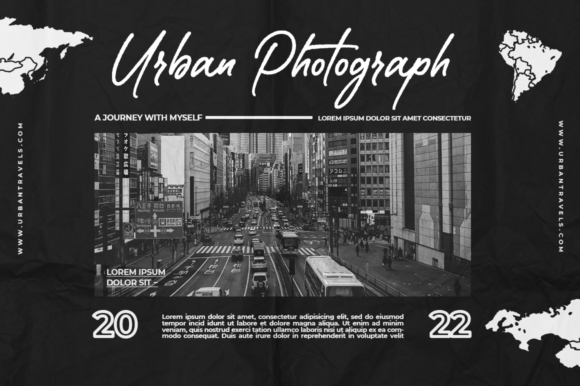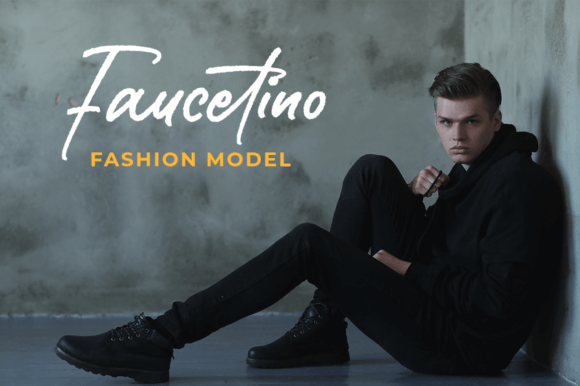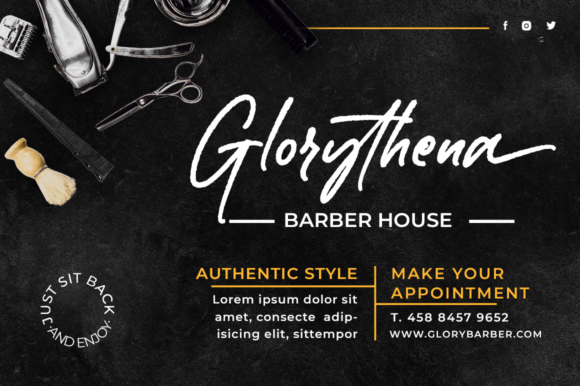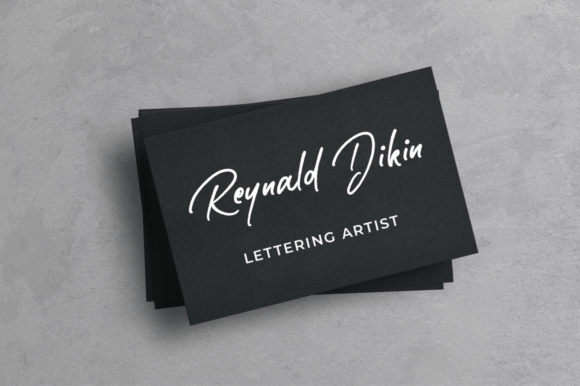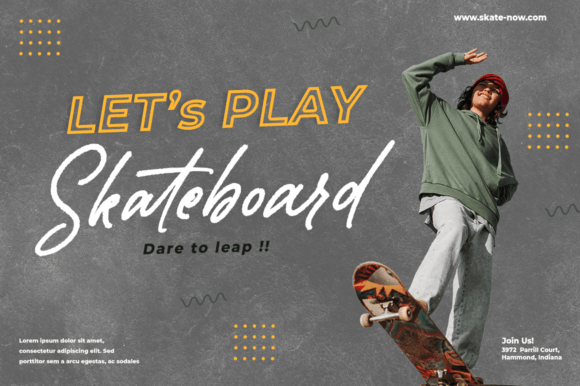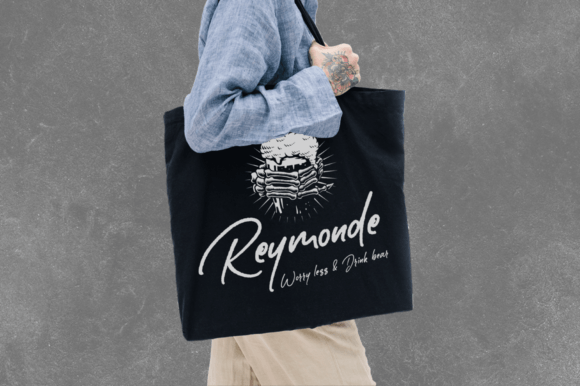
Bareytones Font: Elevate Your Designs with Elegant Brush Strokes
Are you on the hunt for a font that can add a touch of elegance and modernity to your designs? Look no further than Bareytones, a friendly brush-stroke font that’s perfect for a wide range of creative projects. In this article, we’ll dive into the world of Bareytones, exploring its unique features, benefits, and uses, and why it’s a must-have for designers and crafters alike.
What is Bareytones Font?
Bareytones is a dry brush stroke script font that’s designed to bring a sense of sophistication and style to your designs. With its smooth, fluid strokes and elegant letterforms, this font is perfect for creating beautiful headings, titles, and text that stands out from the crowd. Whether you’re working on a logo, branding project, or social media graphics, Bareytones is the perfect choice.
Key Features of Bareytones Font
- PUA Encoding: Bareytones is PUA (Private Use Area) encoded, which means you can access all glyphs and swashes with ease. This makes it simple to customize your text and add unique touches to your designs.
- Dry Brush Stroke Style: The font’s dry brush stroke style gives it a distinctive, hand-crafted look that’s perfect for creating elegant and modern designs.
- Elegant and Modern: Bareytones strikes the perfect balance between elegance and modernity, making it suitable for a wide range of designs, from luxury brands to creative projects.
- Friendly and Approachable: Despite its elegant appearance, Bareytones is a friendly and approachable font that’s perfect for designs that require a personal touch.
Benefits of Using Bareytones Font
So, why should you choose Bareytones for your next design project? Here are just a few benefits of using this amazing font:
- Versatility: Bareytones can be used in a wide range of designs, from logos and branding to social media graphics, posters, and more.
- Ease of Use: With its PUA encoding, Bareytones is easy to use and customize, even for designers who are new to font editing.
- Unique Look: The font’s dry brush stroke style gives it a unique, one-of-a-kind look that’s sure to make your designs stand out.
- Time-Saving: With Bareytones, you can create beautiful designs in no time, thanks to its extensive range of glyphs and swashes.
Who Can Benefit from Bareytones Font?
Bareytones is perfect for a wide range of designers and crafters, including:
- Graphic Designers: Whether you’re working on a logo, branding project, or social media graphics, Bareytones is a great choice.
- Digital Artists: If you’re creating digital art, illustrations, or mixed media designs, Bareytones can add a beautiful, hand-crafted touch.
- Crafters: If you’re a crafter, Bareytones is perfect for creating beautiful titles, headings, and text for your handmade projects.
- Small Business Owners: If you’re looking for a font that can help you create professional-looking designs without breaking the bank, Bareytones is a great option.
Tips and Tricks for Using Bareytones Font
Here are a few tips and tricks for getting the most out of Bareytones:
- Experiment with Different Sizes: Bareytones looks great in a range of sizes, from small headings to large titles.
- Play with Swashes: The font’s swashes can add a beautiful, elegant touch to your designs. Experiment with different combinations to find the perfect look.
- Mix and Match with Other Fonts: Bareytones pairs well with a range of other fonts. Experiment with different combinations to find the perfect look for your design.
In conclusion, Bareytones is a beautiful, elegant font that’s perfect for designers and crafters looking to add a touch of sophistication and style to their designs. With its dry brush stroke style, PUA encoding, and extensive range of glyphs and swashes, Bareytones is a versatile and easy-to-use font that’s sure to become a favorite. So why wait? Download Bareytones today and elevate your designs to the next level!